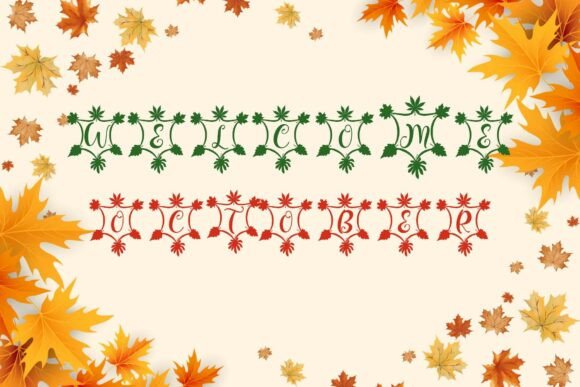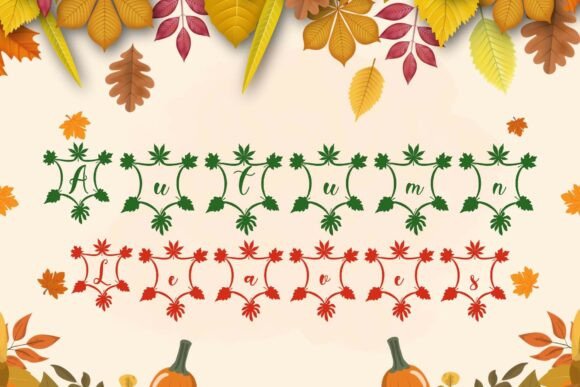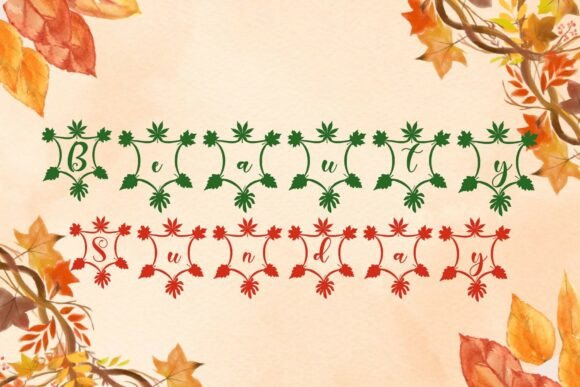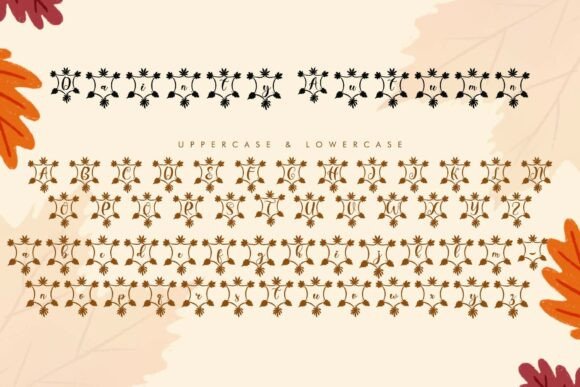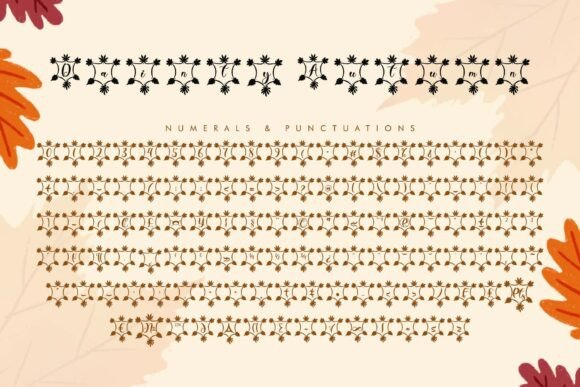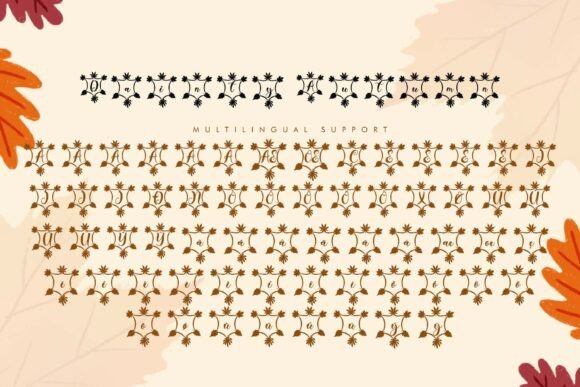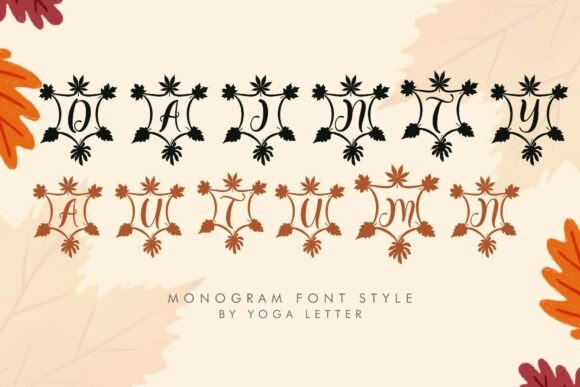
Dainty Autumn Font: Elevate Your Designs with Elegance
As the seasons change and autumn arrives, designers and crafters are on the lookout for fonts that capture the essence of this cozy and inviting time of year. If you’re searching for a font that exudes elegance and sophistication, look no further than the Dainty Autumn Font. In this article, we’ll explore the features and benefits of this beautiful decorative monogram font and how it can elevate your designs.
What is Dainty Autumn Font?
Dainty Autumn is a stunning decorative monogram font that is perfect for a wide range of design projects. Its elegant and refined aesthetic makes it an ideal choice for fall, autumn, Christmas, Valentine’s Day, Thanksgiving, Halloween, and more. The font features uppercase and lowercase letters, numerals, punctuation, and multilingual support, ensuring that you can create beautiful designs that cater to diverse audiences.
Key Features of Dainty Autumn Font
- Uppercase and Lowercase Letters: The font includes both uppercase and lowercase letters, allowing you to create stunning designs with a personal touch.
- Numerals and Punctuation: The font also includes numerals and punctuation marks, making it a versatile choice for a wide range of design projects.
- Multilingual Support: With multilingual support, you can create designs that cater to diverse audiences and languages.
- Decorative Monogram Style: The font’s decorative monogram style adds a touch of elegance and sophistication to any design.
Dainty Autumn Font is perfect for a wide range of design projects, including:
- Fall and Autumn Designs: Create stunning designs for fall and autumn, including banners, posters, and prints.
- Christmas and Valentine’s Day Designs: The font’s elegant aesthetic makes it perfect for Christmas and Valentine’s Day designs, including cards, invitations, and decorations.
- Branding and Logos: Use Dainty Autumn Font to create beautiful and elegant logos and branding materials that stand out.
- Stickers and Sublimation: The font is also perfect for stickers and sublimation projects, including mugs, t-shirts, and more.
- Thanksgiving and Halloween Designs: Create stunning designs for Thanksgiving and Halloween, including banners, posters, and prints.
Benefits of Using Dainty Autumn Font
Using Dainty Autumn Font in your designs offers several benefits, including:
- Elegance and Sophistication: The font’s elegant aesthetic adds a touch of sophistication to any design.
- Versatility: The font’s versatility makes it perfect for a wide range of design projects and applications.
- Easy to Read: The font is easy to read, making it perfect for designs that require clear and concise communication.
- Unique and Creative: The font’s decorative monogram style makes it a unique and creative choice for designers and crafters.
Tips for Using Dainty Autumn Font
Here are some tips for using Dainty Autumn Font in your designs:
- Pair with Other Fonts: Pair Dainty Autumn Font with other fonts to create a unique and creative design.
- Use for Headings and Titles: Use Dainty Autumn Font for headings and titles to add a touch of elegance and sophistication.
- Keep it Simple: Keep your design simple and clean to ensure that the font is the focal point.
Dainty Autumn Font is a beautiful and elegant decorative monogram font that is perfect for designers and crafters. Its versatility, elegance, and sophistication make it an ideal choice for a wide range of design projects, from fall and autumn designs to Christmas and Valentine’s Day designs. With its uppercase and lowercase letters, numerals, punctuation, and multilingual support, Dainty Autumn Font is a must-have for any designer or crafter looking to elevate their designs.